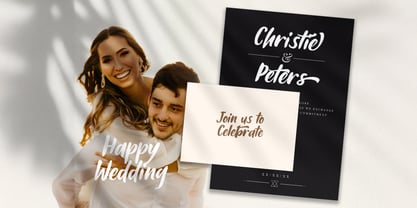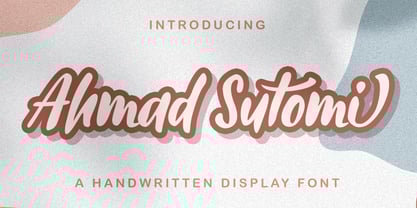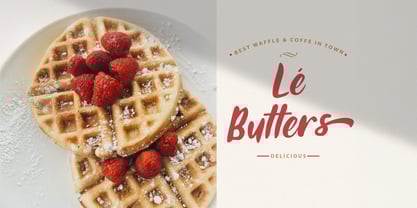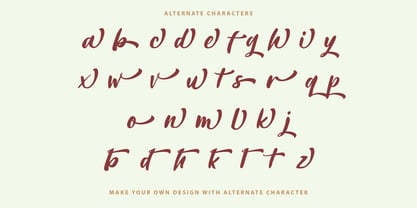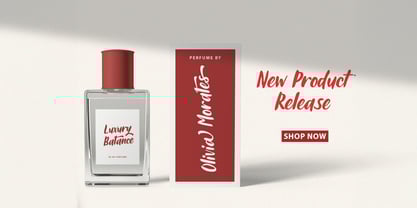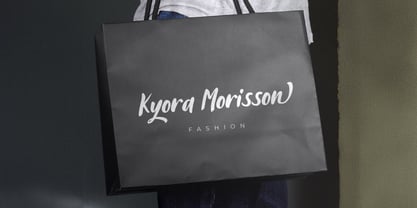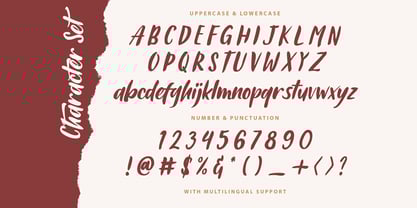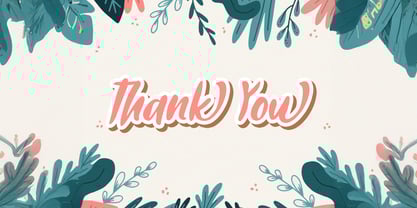
Ahmad Sutomi
by Stringlabs Creative Studio
The Ahmad Sutomi Font Family was designed by Virgiawan Listanto and published by Stringlabs Creative Studio. Ahmad Sutomi contains 1 styles.
Ahmad Sutomi is an elegant handwritten font that blends simplicity with authenticity. Featuring smooth curves and natural letterforms, it evokes the charm of real handwriting perfect for adding a personal, warm touch to your designs. Whether you're creating heartfelt quotes, branding, or social content, Ahmad Sutomi delivers a clean, expressive style that feels both modern and sincere.
Designers: Virgiawan Listanto
Publisher: Stringlabs Creative Studio
Foundry: Stringlabs Creative Studio
Design Owner: Stringlabs Creative Studio